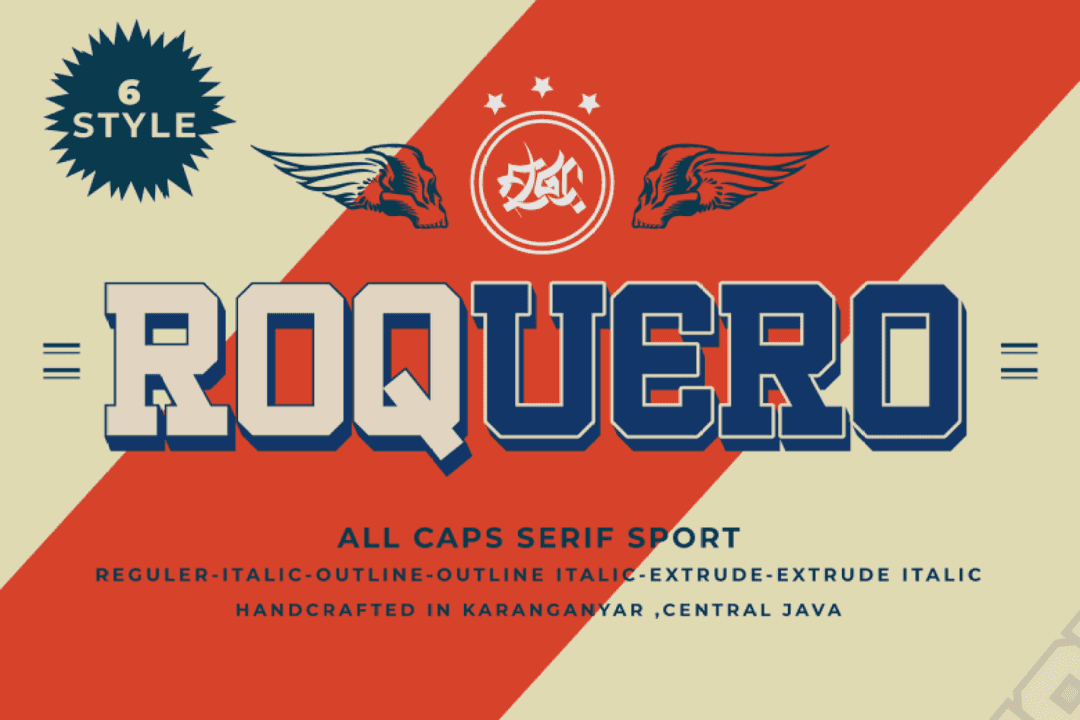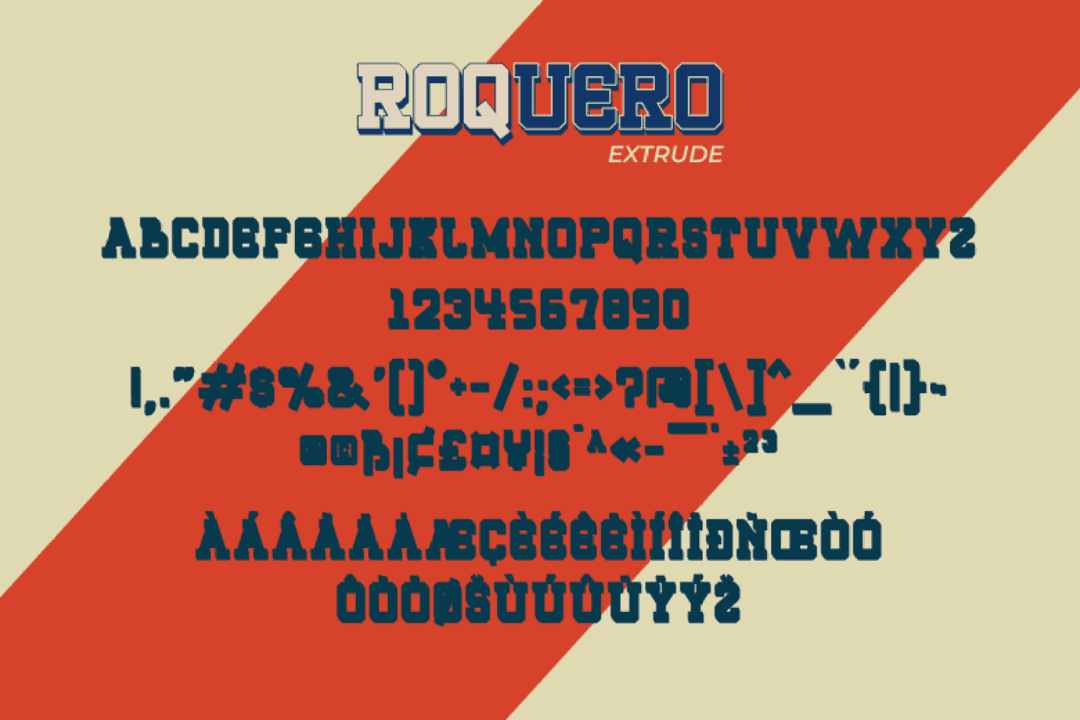
Roquero Font Family boasts both strength and vitality, making this serif font perfect for sports-inspired projects! Available both extruded and italic styles to meet your every need!